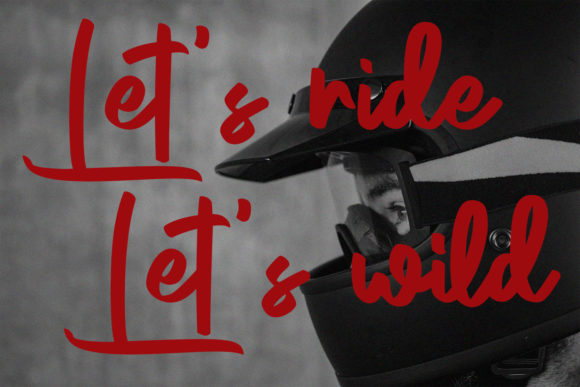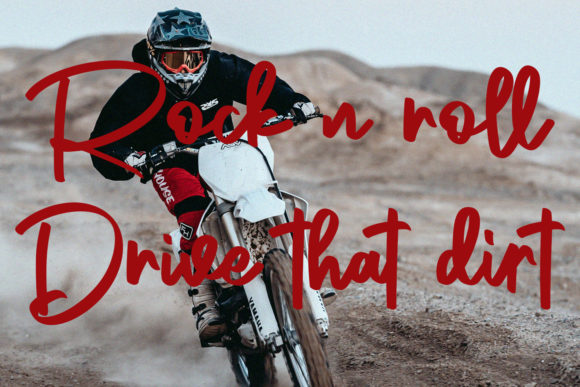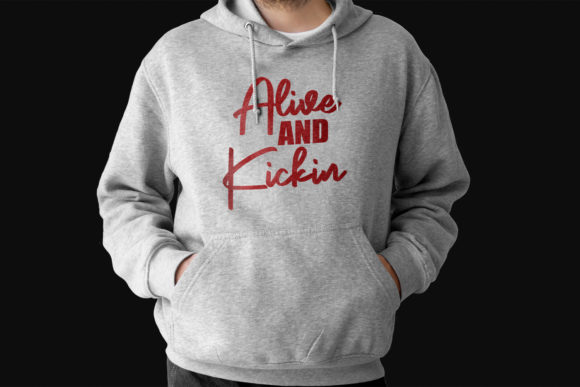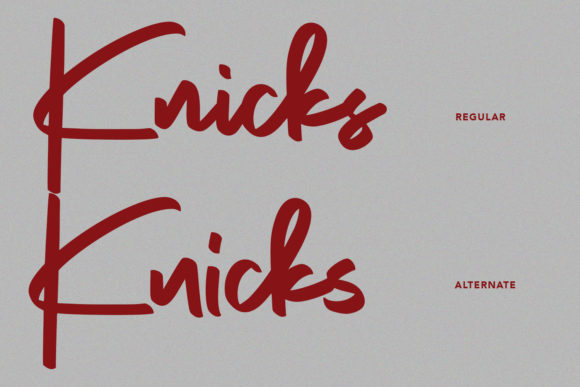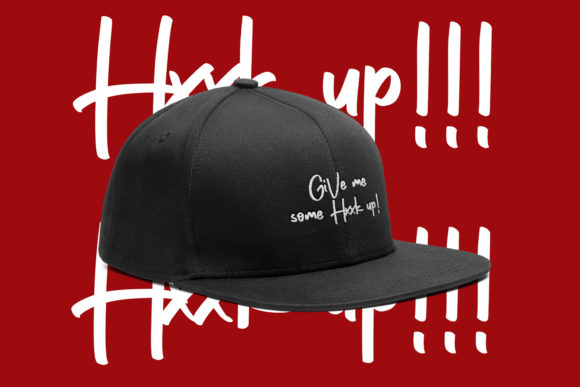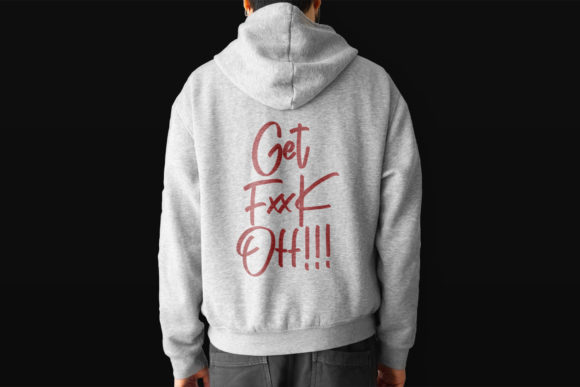
The Ultimate Guide to Brothest Font: Unleashing Bold, Street-Styled Designs
I’ll never forget the time I was working on a project for a client who wanted a bold, eye-catching font to give their brand a edgy vibe. I scoured the internet for hours, trying out font after font, but nothing seemed quite right. That was until I stumbled upon Brothest Font. This cool, bold, street-styled display font has been a game-changer for my designs ever since. In this article, I’ll share my honest review of Brothest Font, provide a practical guide on how to use it, and explore similar fonts you might love.
My Honest Review of Brothest Font
So, what do I love about Brothest Font? Here are a few things that make it stand out:
• Strong and confident: Brothest Font exudes a sense of confidence and strength, making it perfect for designs that need a bold statement.
• Dynamic and energetic: The font’s dynamic and energetic feel adds a touch of nostalgia to your designs, making them more engaging and memorable.
• 🔥 Highly versatile: Brothest Font can be used for a wide range of design projects, from posters and flyers to social media graphics and branding.
While Brothest Font is an amazing font, it’s not without its quirks. Here are a few things to keep in mind:
• 🤔 Limited use in body text: Due to its bold and stylized nature, Brothest Font may not be the best choice for body text. It’s better suited for headings and titles.
• ⚠️ Some glyphs may not be available: As with any font, some glyphs or special characters may not be available in Brothest Font. Make sure to check the font’s specifications before using it.
One of the exciting features of Brothest Font is its OpenType features and glyphs. These special characters can add an extra layer of creativity to your designs. Here’s how to access them:
The Backstory of Brothest Font
Brothest Font was designed by a team of creatives who wanted to create a font that captured the essence of street culture. Inspired by graffiti, urban art, and bold typography, they crafted a font that’s both strong and stylish. The font’s designer drew inspiration from the streets, combining different styles and techniques to create a unique and dynamic font.
Q: What type of designs is Brothest Font best suited for?
A: Brothest Font is perfect for designs that need a bold, eye-catching font, such as posters, flyers, social media graphics, and branding.
Q: Is Brothest Font available in different styles or weights?
A: Brothest Font may be available in different styles or weights, but it’s best to check with the font’s creator or distributor for more information.
Q: Can I use Brothest Font for body text?
A: While Brothest Font can be used for body text, it’s not recommended due to its bold and stylized nature. It’s better suited for headings and titles.